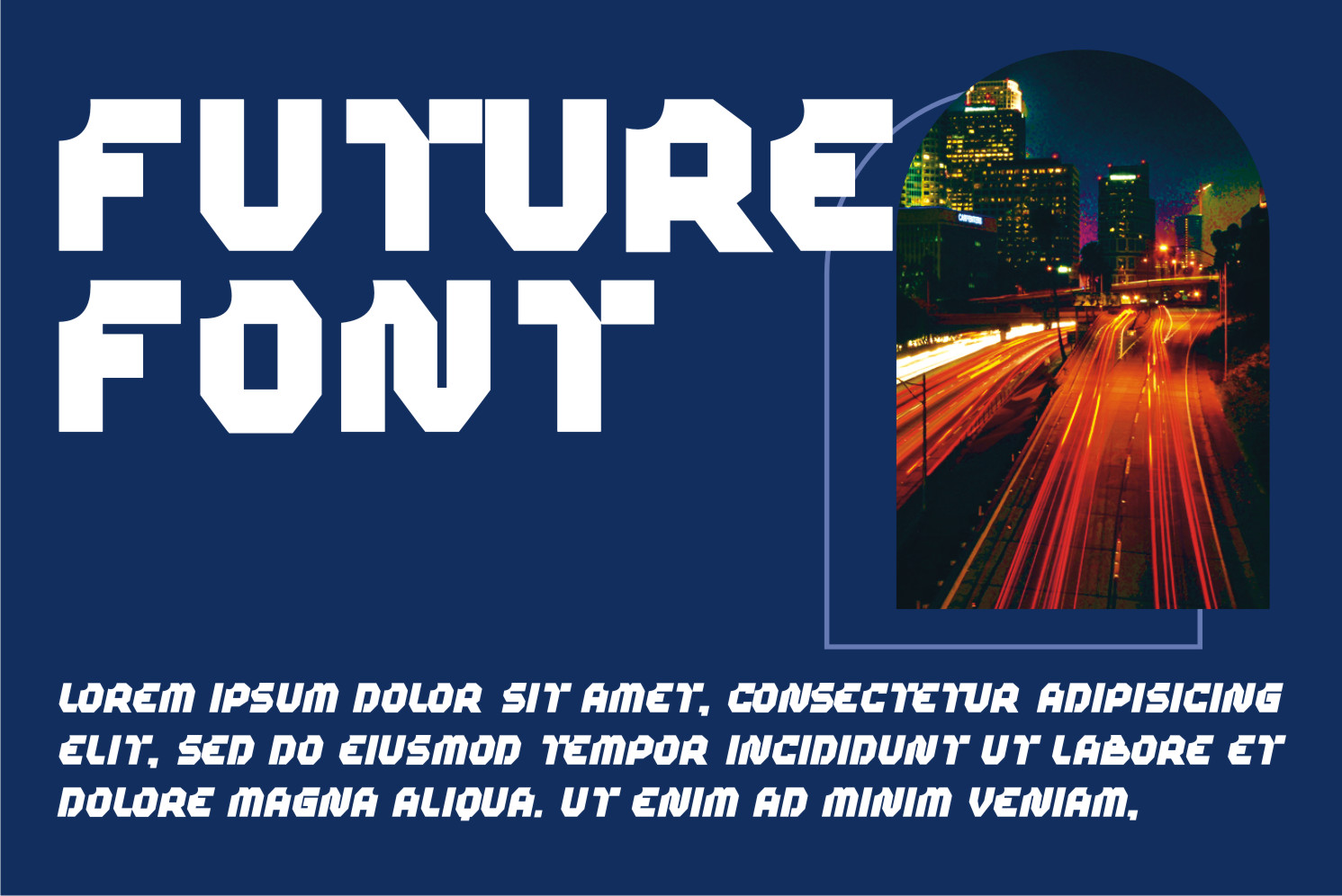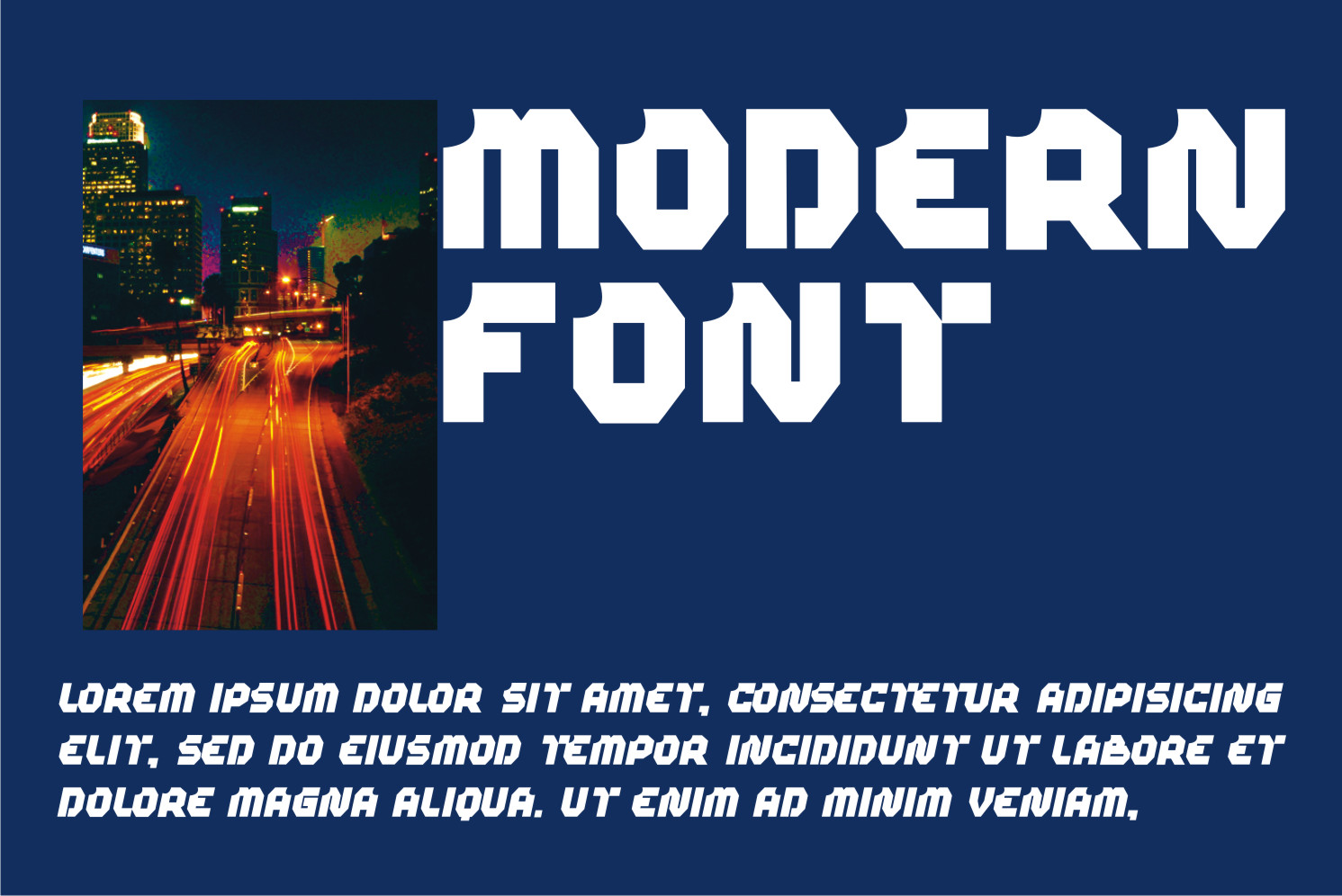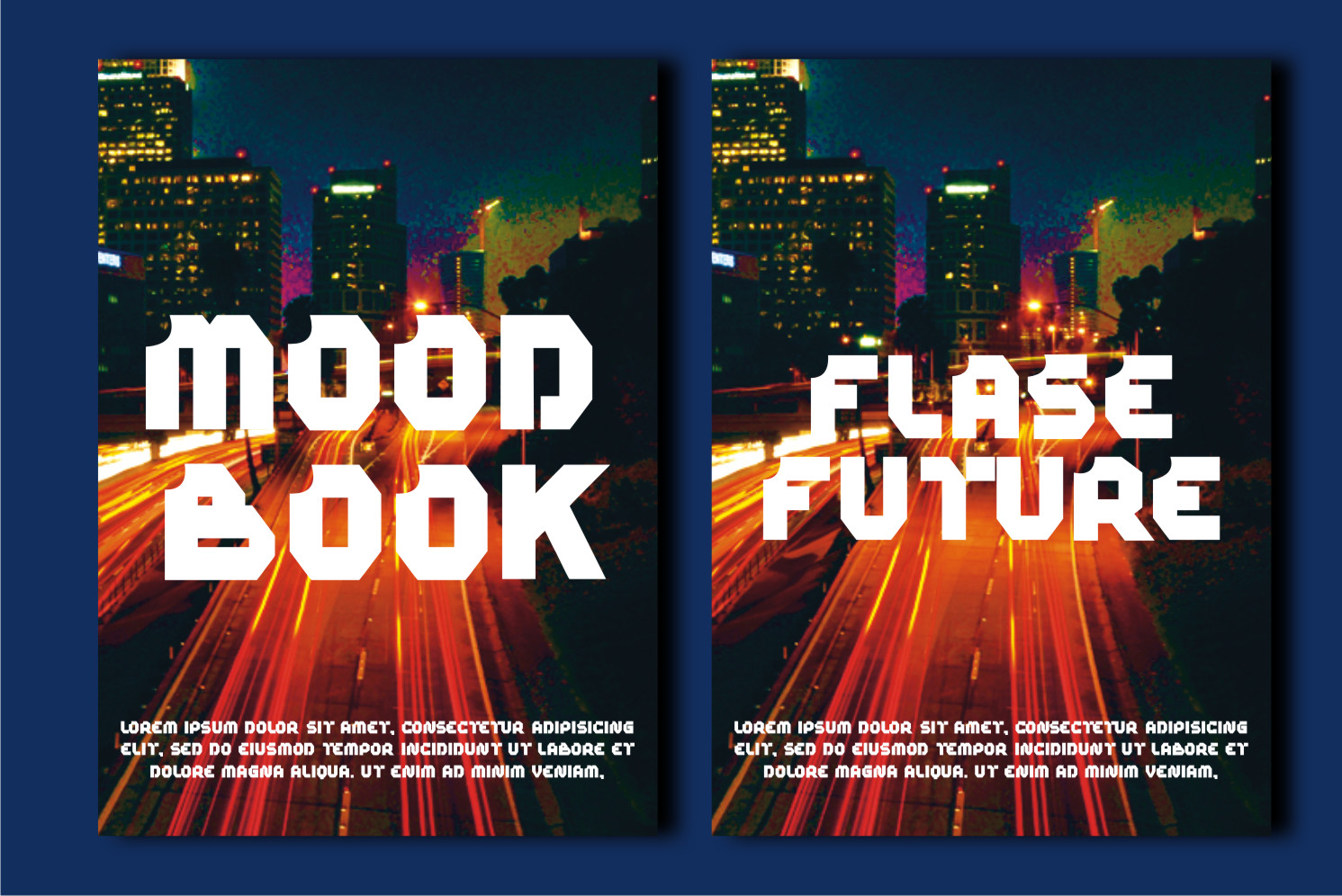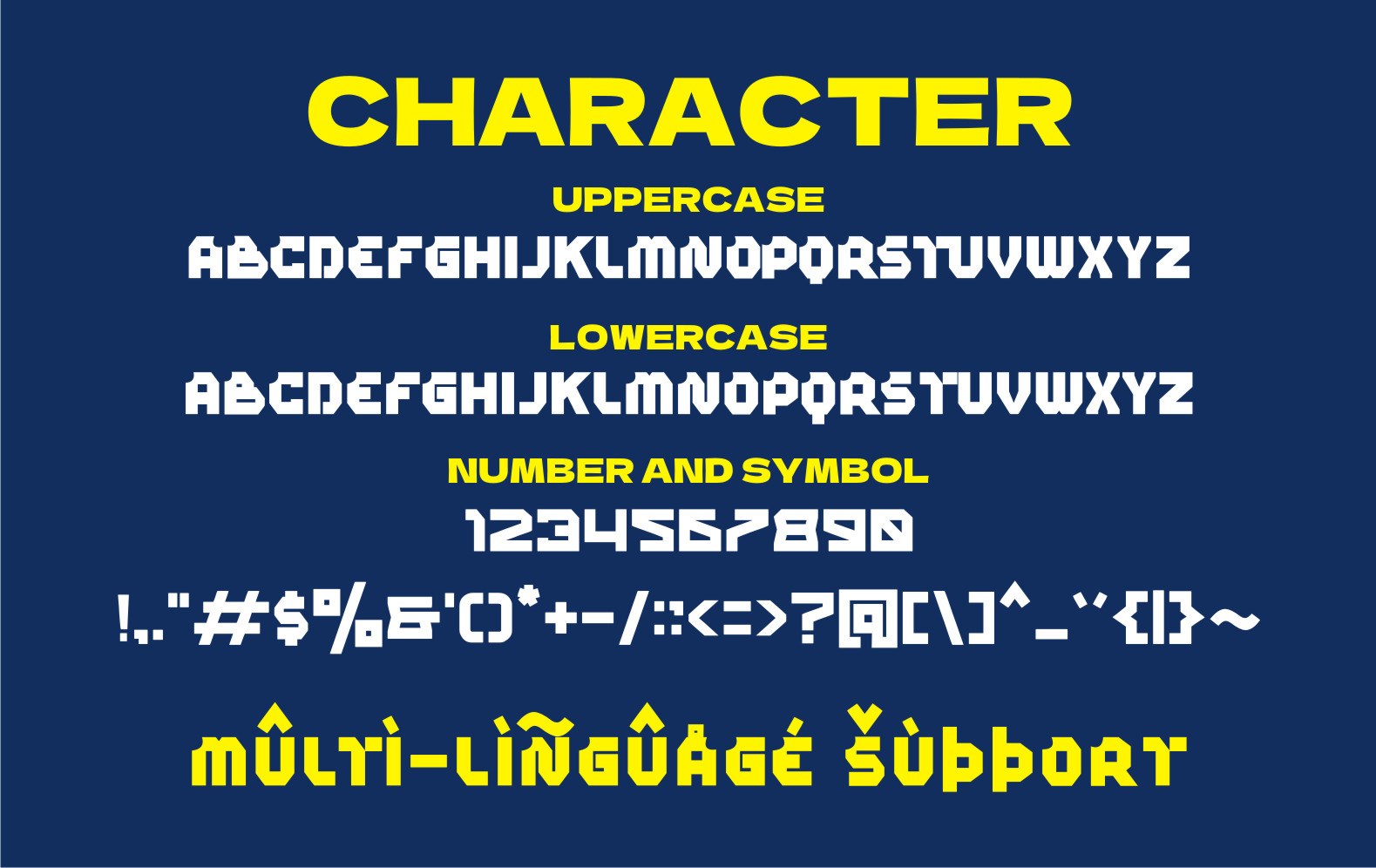
Metalic Display Font
It’s a cool, bold and thick lettered display font. It works on any poster, flyer or print. Use this font for your designs and explore its endless possibilities.